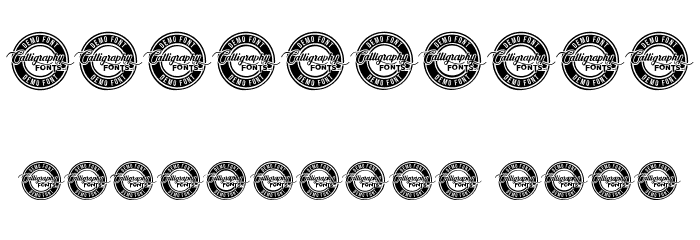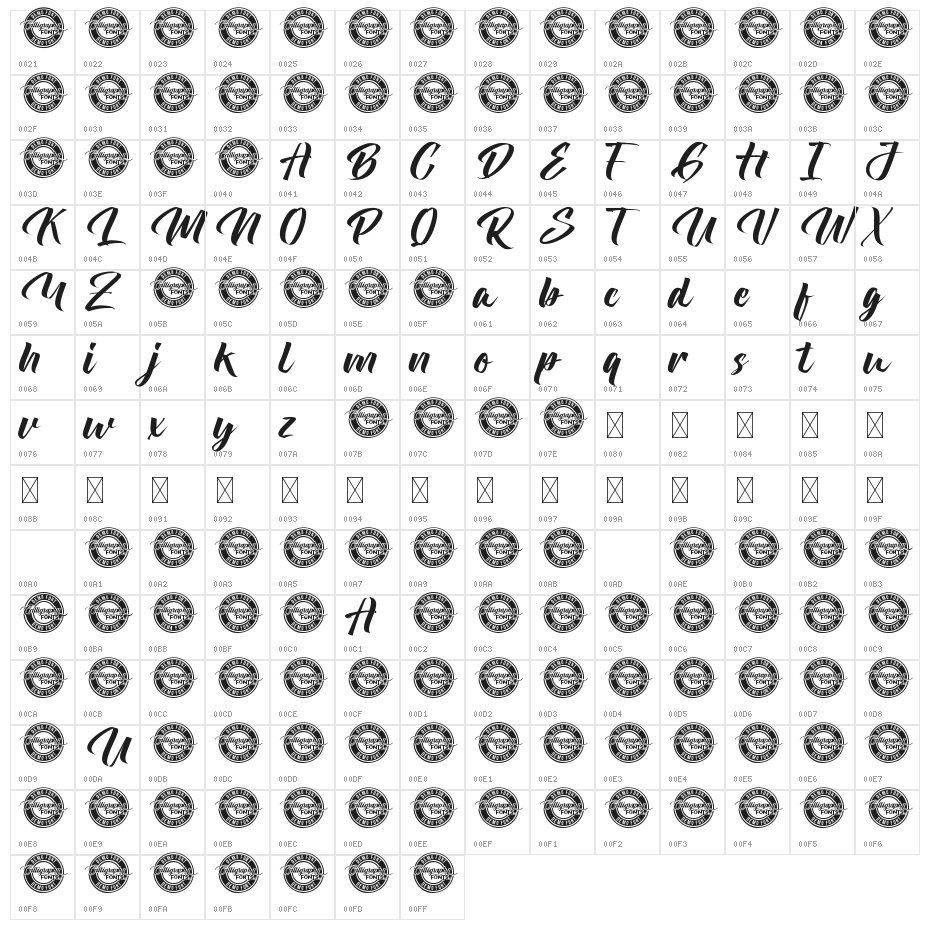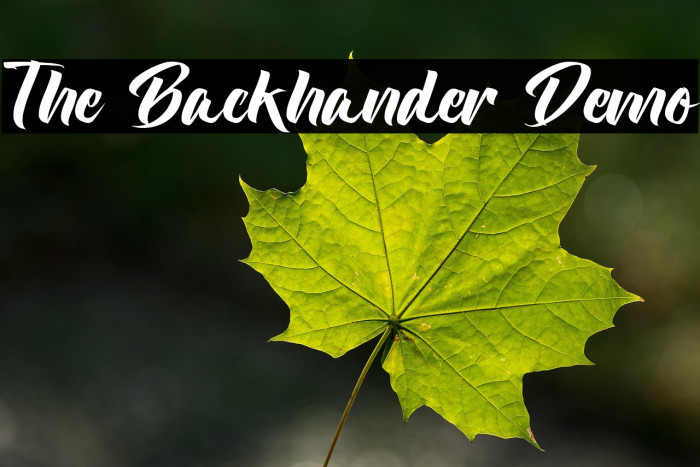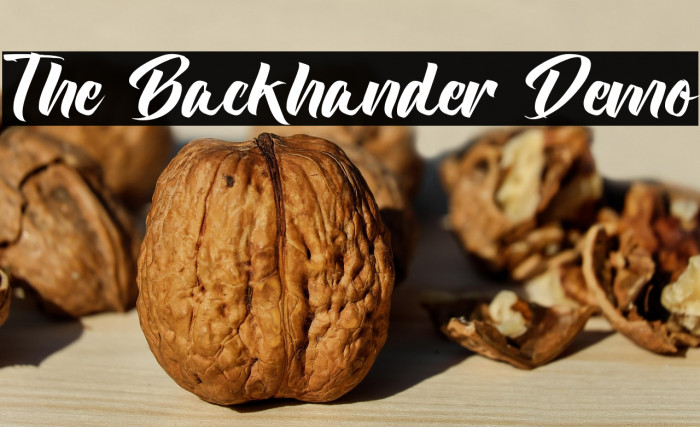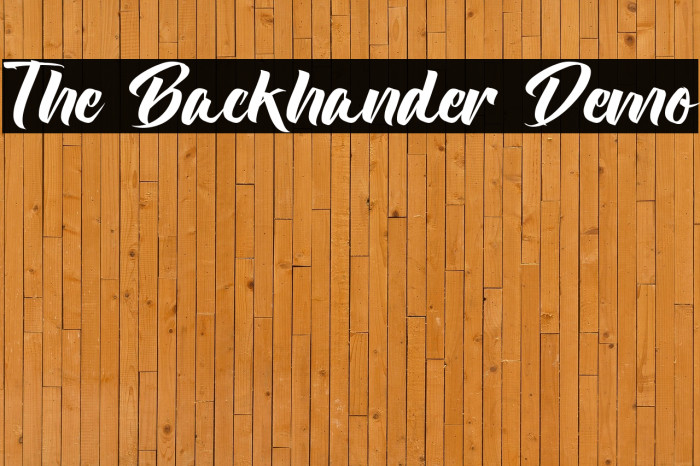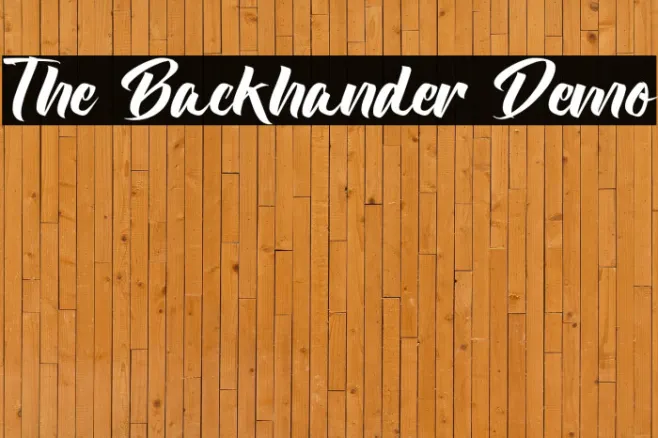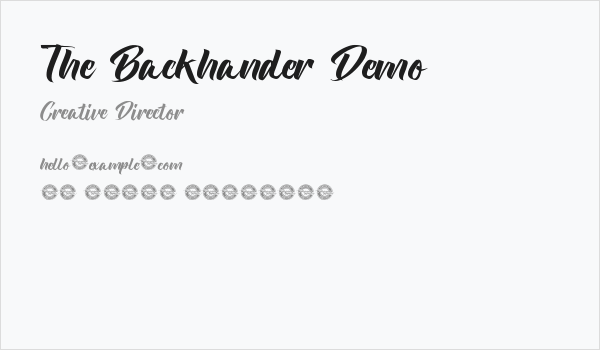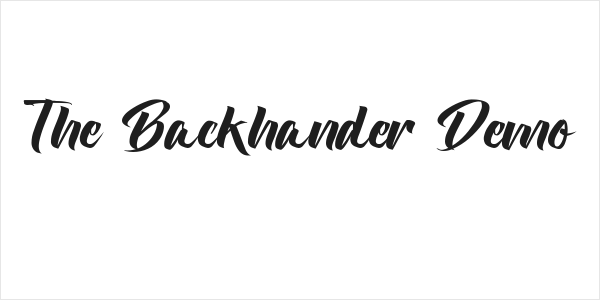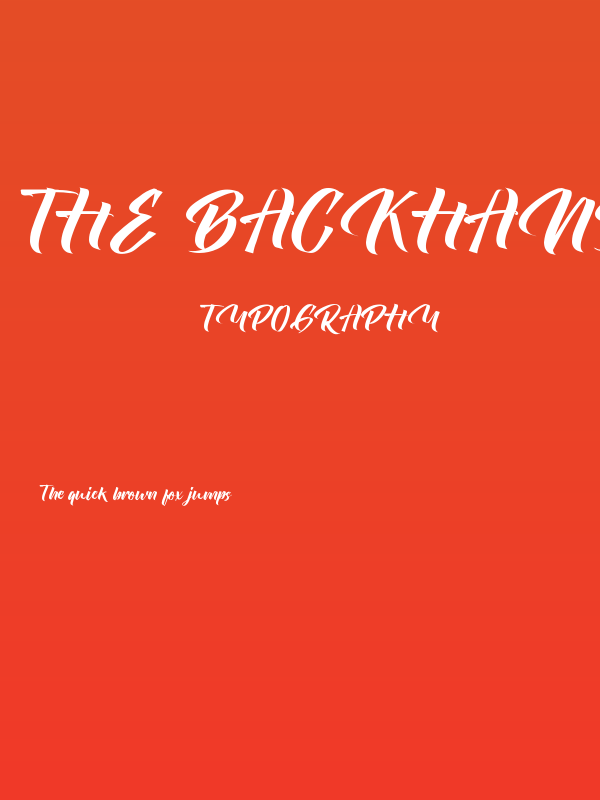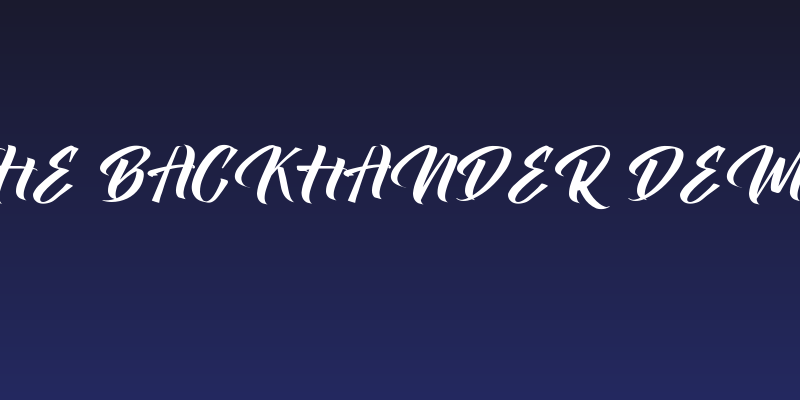
The Backhander Demo Font
The Backhander Demo Description
This font features a bold and expressive script style with a dynamic and flowing appearance. The characters are connected in a cursive manner, giving it a handwritten feel. The strokes are thick and consistent, providing a strong visual impact. The uppercase letters are elegantly designed with sweeping curves, while the lowercase letters maintain a smooth and cohesive look. The overall style is modern and artistic, suitable for projects that require a personal touch. The font's boldness and fluidity make it ideal for creative and decorative applications.